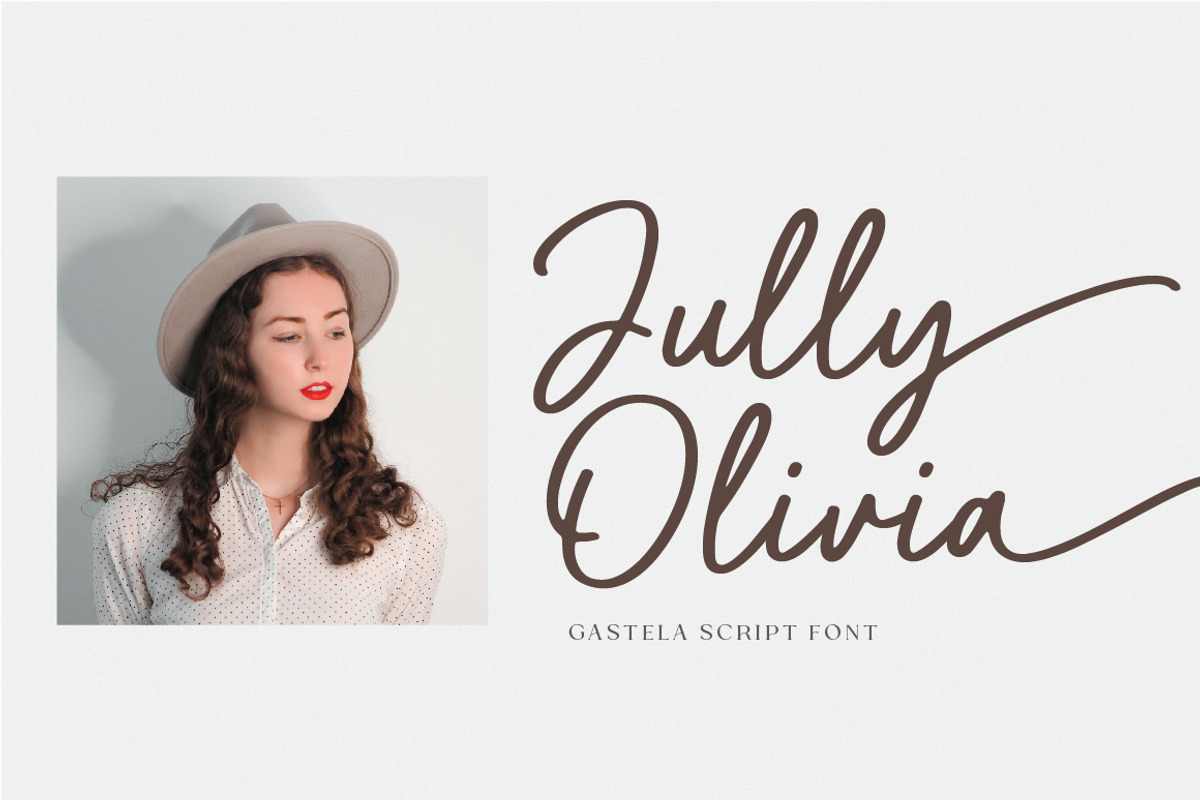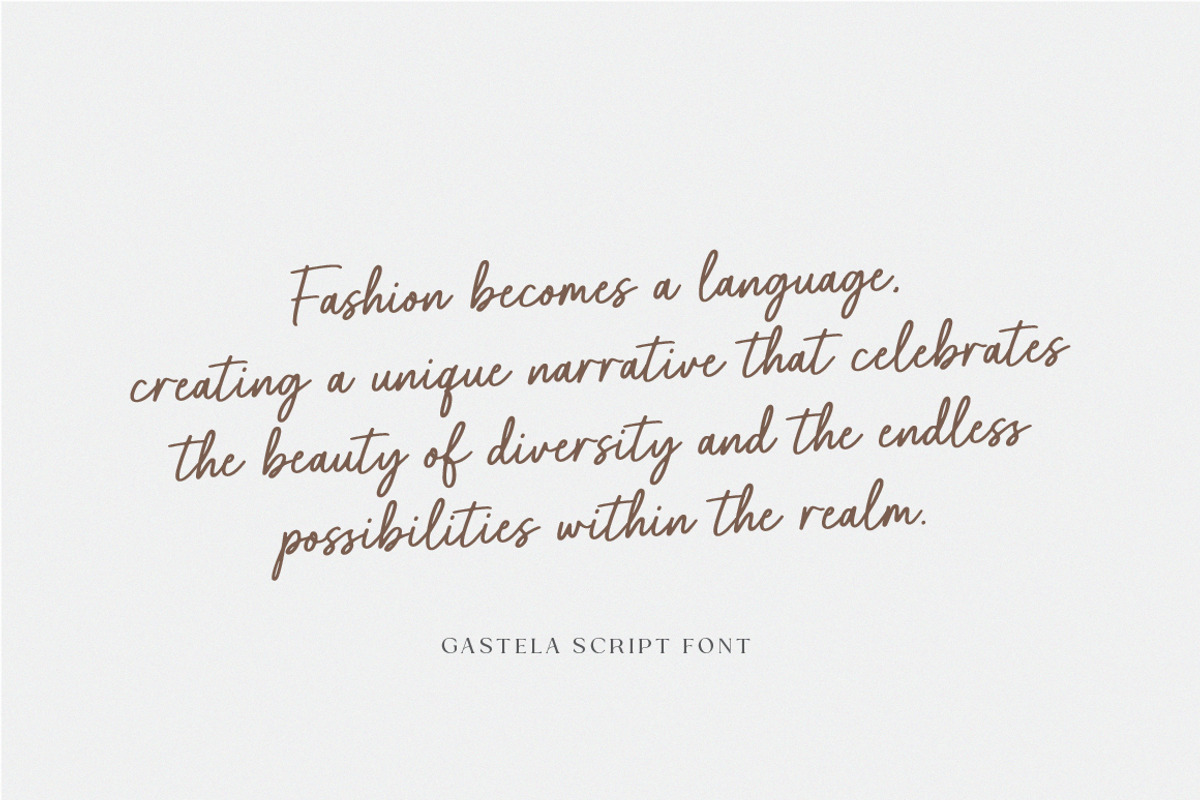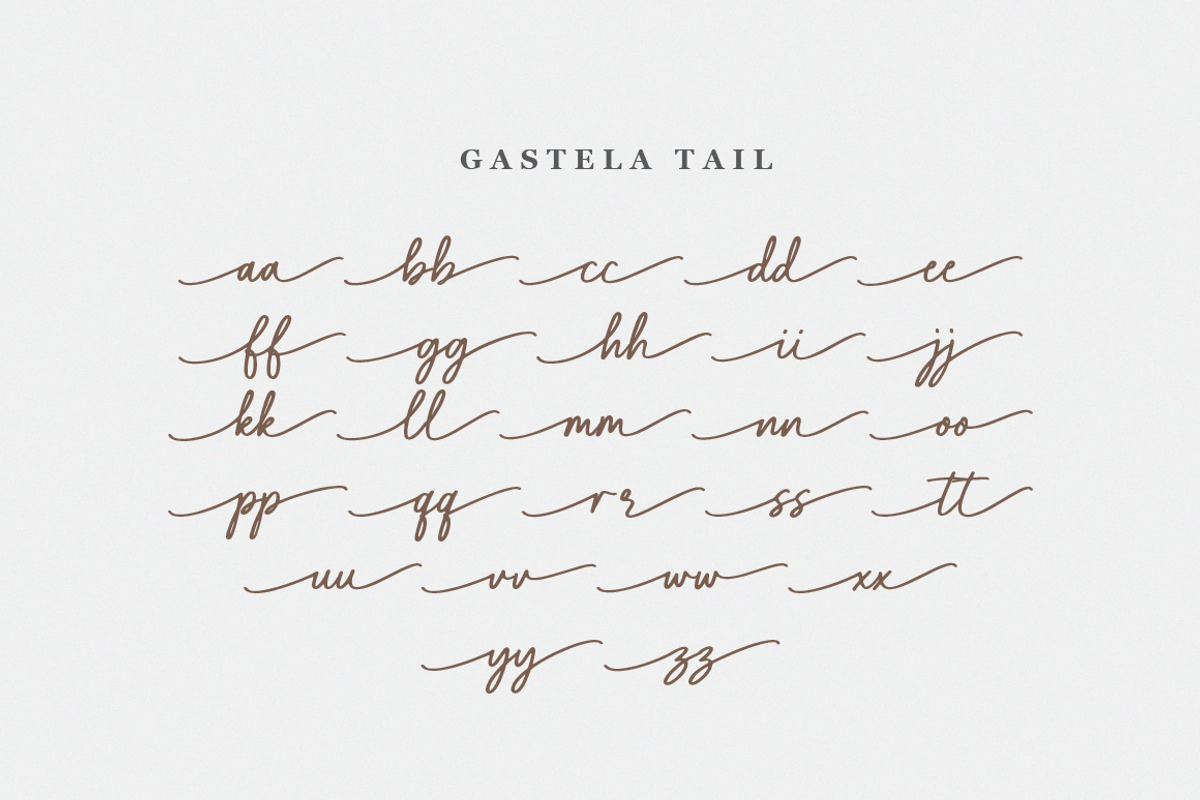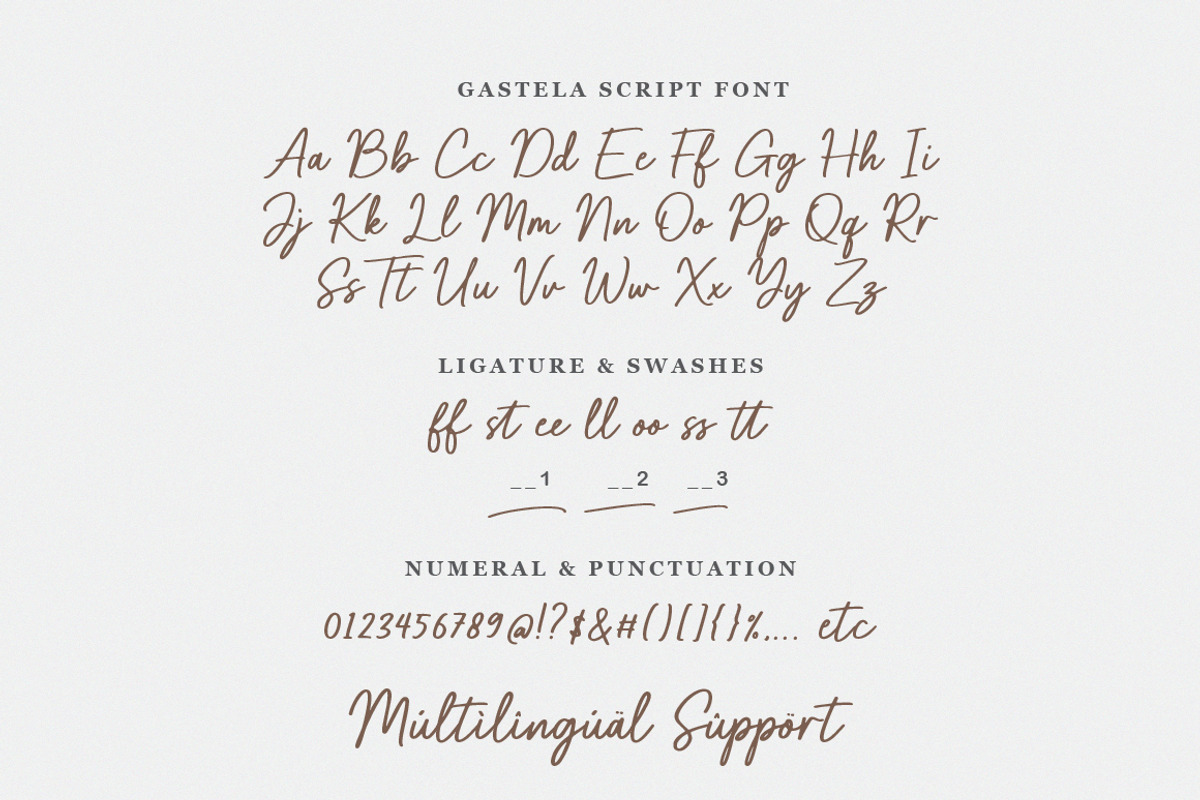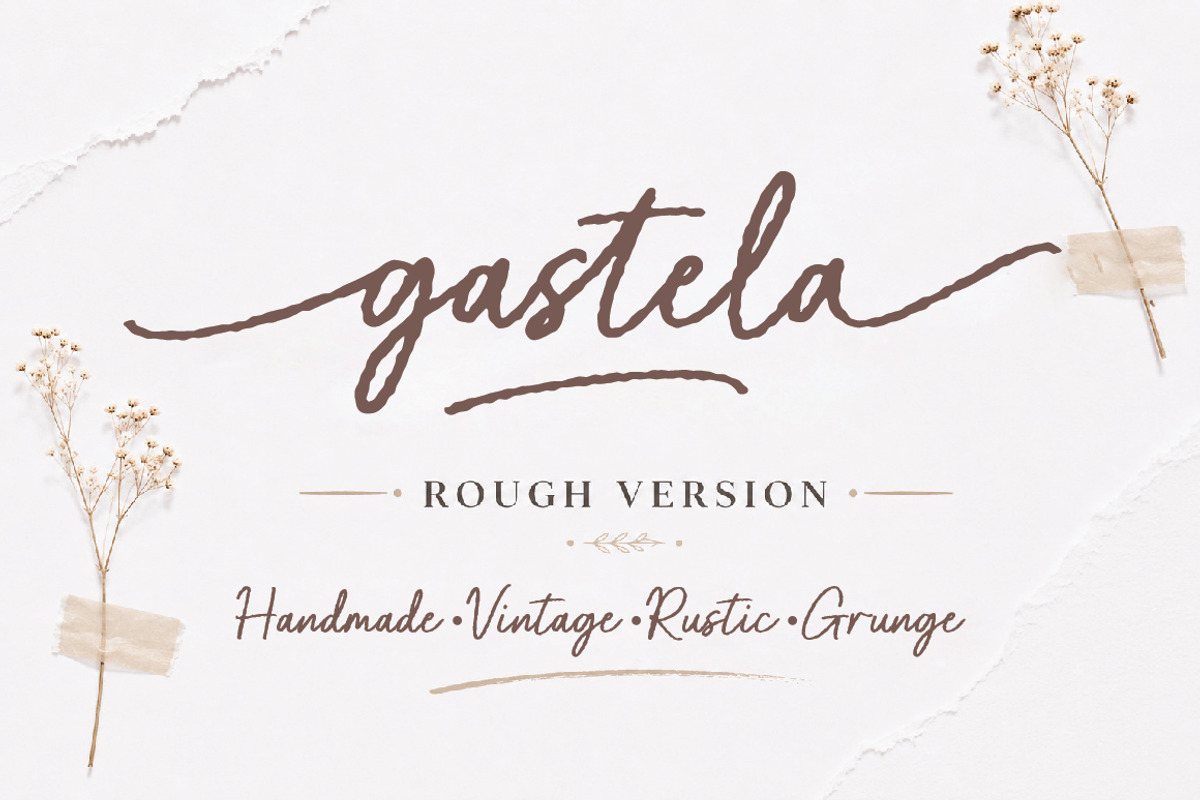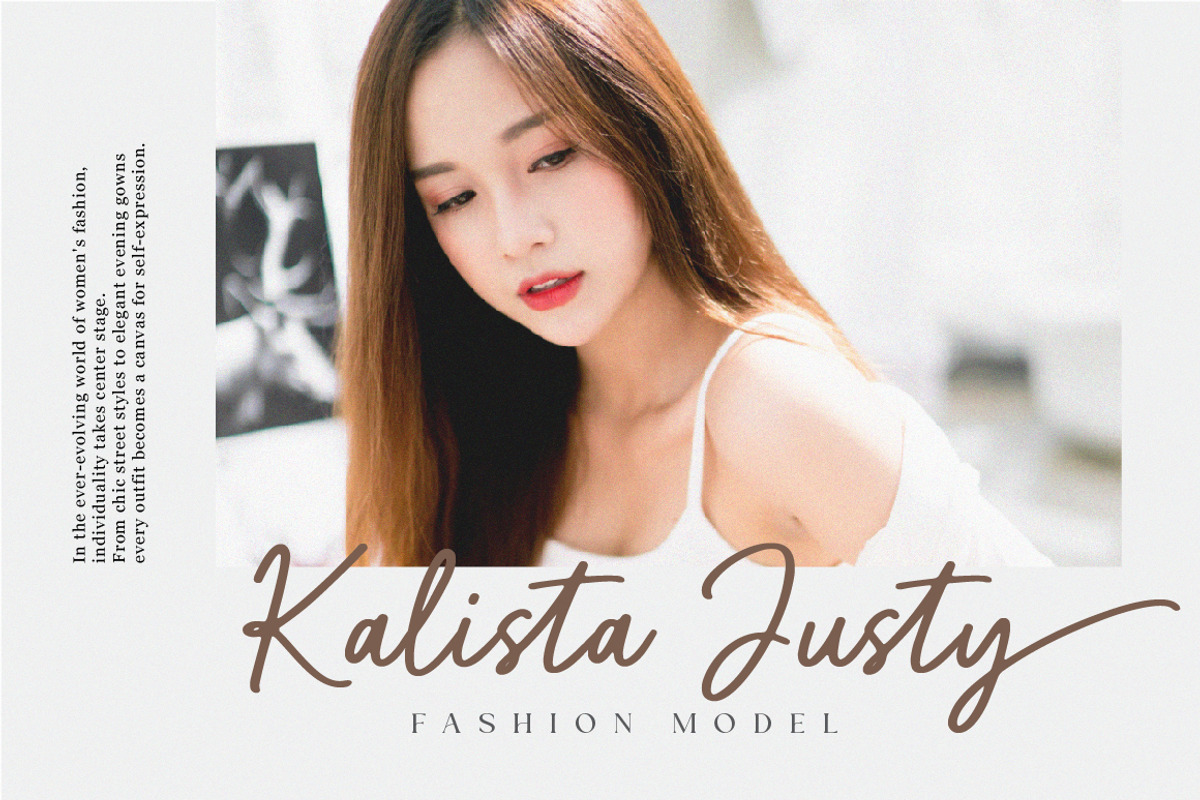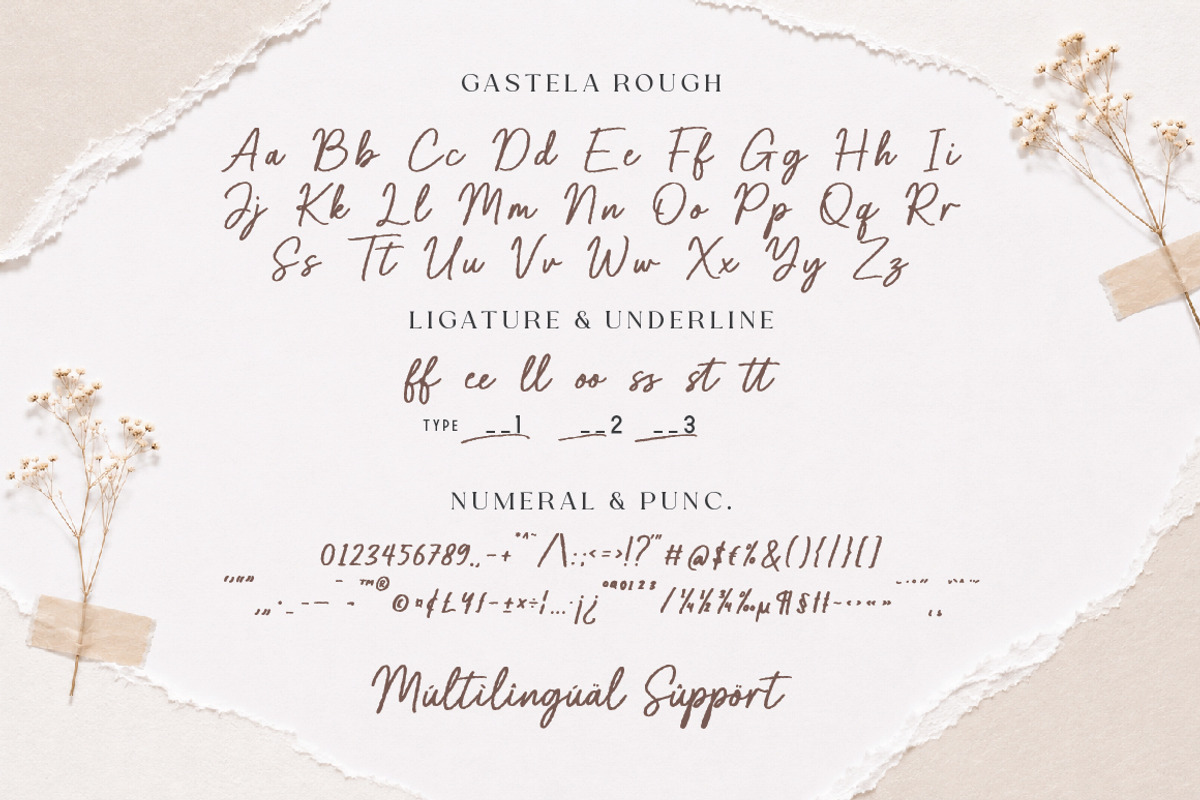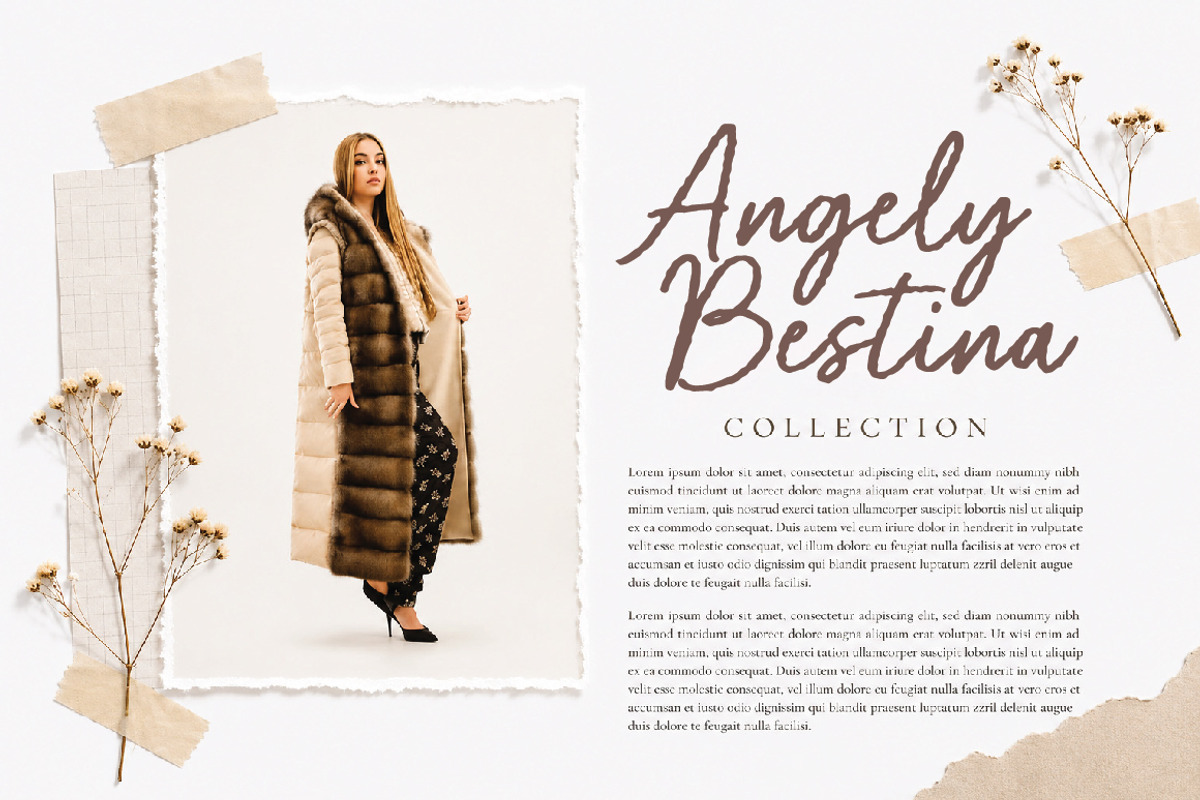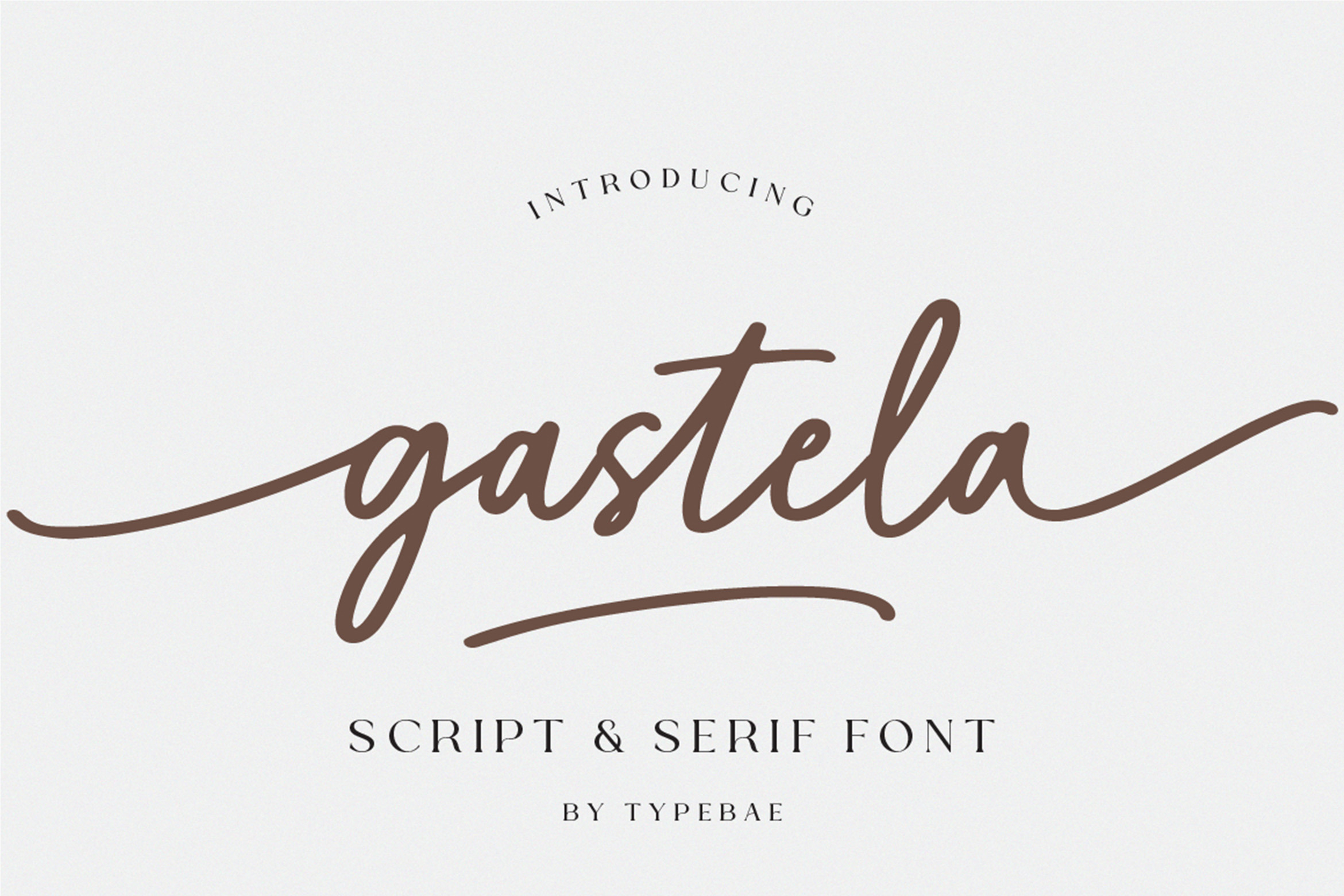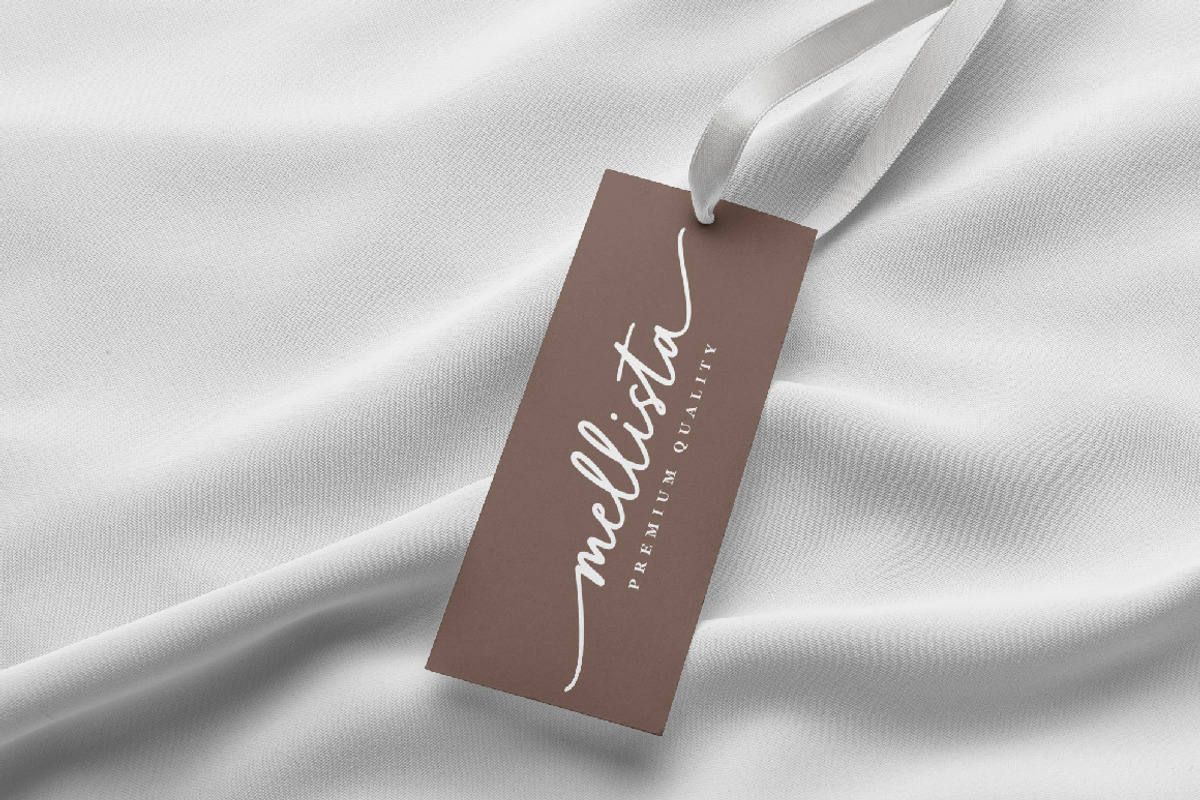
Gastela Brush Script Font with Swash
Gastela is a beautiful font duo that combines a handwritten brush script with a refined serif. The script style features elegant tails at the beginning and end of each letter, along with flowing ligatures that create a natural, handwritten look. Paired with the timeless and sophisticated serif, Gastela offers perfect harmony for designs that require both personality and elegance.
To use beginning and ending swashes (tail), you don't need to use software that supports opentype, because we have made it separately so it's very easy to use.
Feature: Ligature, Stylistic Alternate, Multilingual and PUA encoded.